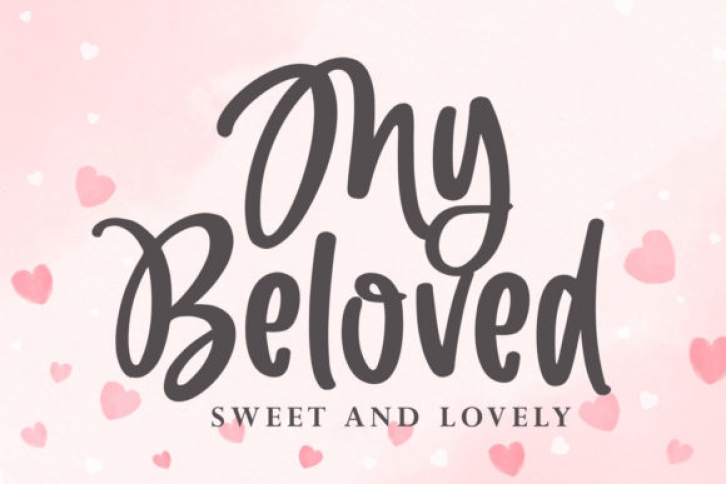
My Beloved is a relaxed and trendy handwritten font. It looks great on wedding invitations, thank you cards, quotes, greeting cards, logos, business cards and every other design which needs a customized touch.